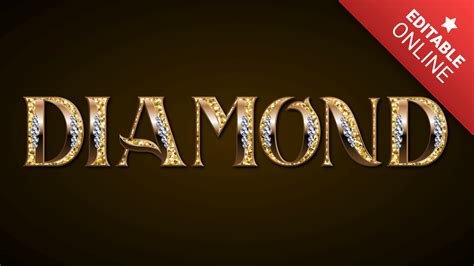
Sparkle up Your Design: Create Stunning Typography with Gold Diamond Font Generator
You want your designs to stand out from the crowd, right? Then it's time to bring on the bling! Adding some glitter and glam to your typography can take it to the next level, and there's no better way to do that than with a gold diamond font generator.
Think about it - what's more eye-catching than actual diamonds? And while we may not all have the budget for real gems, we can certainly create the illusion of luxury with a little help from technology.
So, let's get started. Here are three reasons why you should give gold diamond fonts a try:
1. They're Versatile
Gold diamond fonts can work for any type of design, from wedding invitations to band posters. They add an instant touch of elegance and sophistication to anything you create.
2. They're Easy to Use
You don't need any design experience to use a gold diamond font generator - just type in your text and download the finished product. It's that simple!
3. They're Affordable
No need to break the bank to add some sparkle to your designs. Many gold diamond font generators are free to use, and even the ones that require a small fee won't put a dent in your budget.
In conclusion, adding some sparkle and shine to your typography is a surefire way to make your designs stand out. So why not give a gold diamond font generator a try? It's versatile, easy to use, and won't cost you an arm and a leg. Who knows - you may just become the envy of all your designer friends!
The Power of Typography in Design
Typography is an essential element of design that can make or break a project. A well-designed typography can convey a message, evoke an emotion, and capture the attention of your audience. With the Gold Diamond Font Generator, you can take your typography to the next level and create stunning designs that sparkle and shine.
Introducing the Gold Diamond Font Generator
The Gold Diamond Font Generator is an online tool that allows you to create beautiful typography with a glittery, diamond-like effect. This font generator offers a range of styles, from delicate cursive to bold, geometric fonts, all with a touch of glamour and luxury.
How to Use the Gold Diamond Font Generator
Using the Gold Diamond Font Generator is easy and intuitive. Here are the simple steps to follow:
The Benefits of Using the Gold Diamond Font Generator
Here are a few of the benefits of using the Gold Diamond Font Generator:
- You can easily create glittery, diamond-like text without any design skills.
- You can choose from a variety of font styles to suit your project's tone and mood.
- You can adjust the size of your text to fit your design needs.
- You can add a touch of luxury and glamour to your designs, making them stand out.
A Comparison of the Gold Diamond Font Generator with Other Tools
There are other font generators and text effects tools available, but how does the Gold Diamond Font Generator compare?
| Gold Diamond Font Generator | Other Text Effects Tools | |
|---|---|---|
| Ease of Use | Very easy, intuitive interface, no design skills needed. | Varies depending on the tool, may require some design skills. |
| Font Styles | Offers a range of styles, from delicate cursive to bold, geometric fonts, all with a touch of glamour and luxury. | Varies depending on the tool, may offer a limited selection of fonts and styles. |
| Customization | Allows you to adjust the size and color of your text, and download it in vector or raster format. | Varies depending on the tool, may offer limited customization options. |
| Price | Free! | Varies depending on the tool, may require a subscription or purchase. |
In Conclusion
The Gold Diamond Font Generator is a powerful and easy-to-use tool for adding a touch of luxury and glamour to your designs. With its range of fonts, customizable colors, and easy download options, it's a great option for any designer who wants to create stunning typography that sparkles and shines.
Give it a try and see how it can add a new dimension to your design projects - you won't be disappointed!
Yes, there may be some limitations to using a Gold Diamond Font Generator depending on the specific tool you are using. For example, some generators may only offer limited font options, or may not allow you to adjust certain settings. It's important to choose a generator that meets your specific needs and requirements.